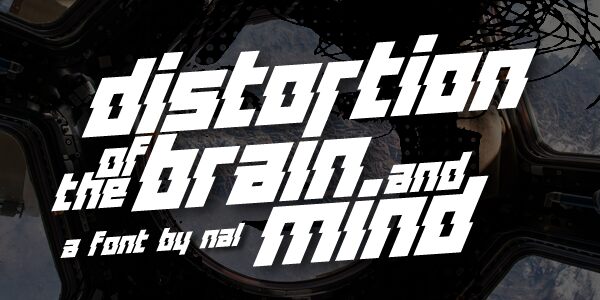
Distortion Of The Brain And Mind by Andrew McCluskey is a free distorted techno display font with a fierce forward slant. Deep cuts split the angular letters into shifting bands, creating a fast, unstable silhouette.
Its arcade-industrial style fits game title cards and electronic music posters, with fractured strokes that suggest motion and signal interference. The lettering looks engineered for speed. It can also sharpen streetwear graphics and science-fiction event branding through its aggressive, machine-cut shapes.
Distortion Of The Brain And Mind
Andrew McCluskey